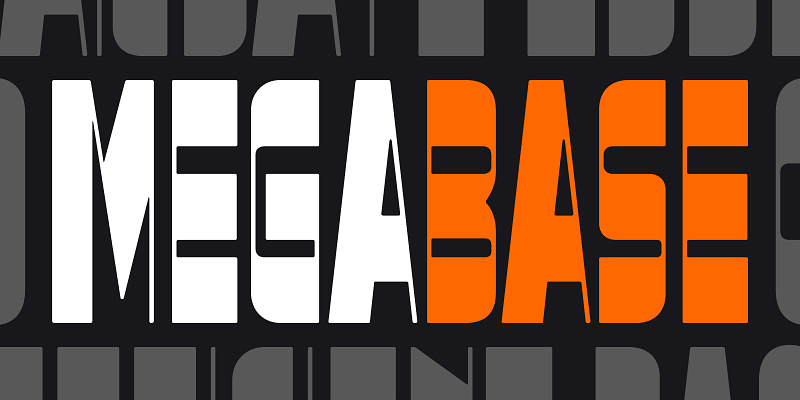
If you're searching for a bold, futuristic typeface that commands attention, Megabase Font Free Download is the perfect pick. This dynamic and high-impact font is designed for projects that require a strong visual presence—ideal for tech branding, game titles, posters, or sci-fi themed content.
Megabase brings a digital, modern edge to your typography with sharp angles and geometric structure. It’s a favorite among graphic designers who want to deliver a message with authority and clarity. Whether you’re creating user interfaces, digital ads, or bold website headers, this font is built to stand out in both print and screen environments.
Beyond its striking appearance, Megabase is engineered for versatility. It maintains readability at various sizes and supports a wide range of creative applications. Download the font and explore its clean lines, unique glyphs, and futuristic vibes.
Bring intensity and innovation to your next design with Megabase, the font that makes a lasting impression. Let your visuals speak louder with a typeface that’s engineered for impact.